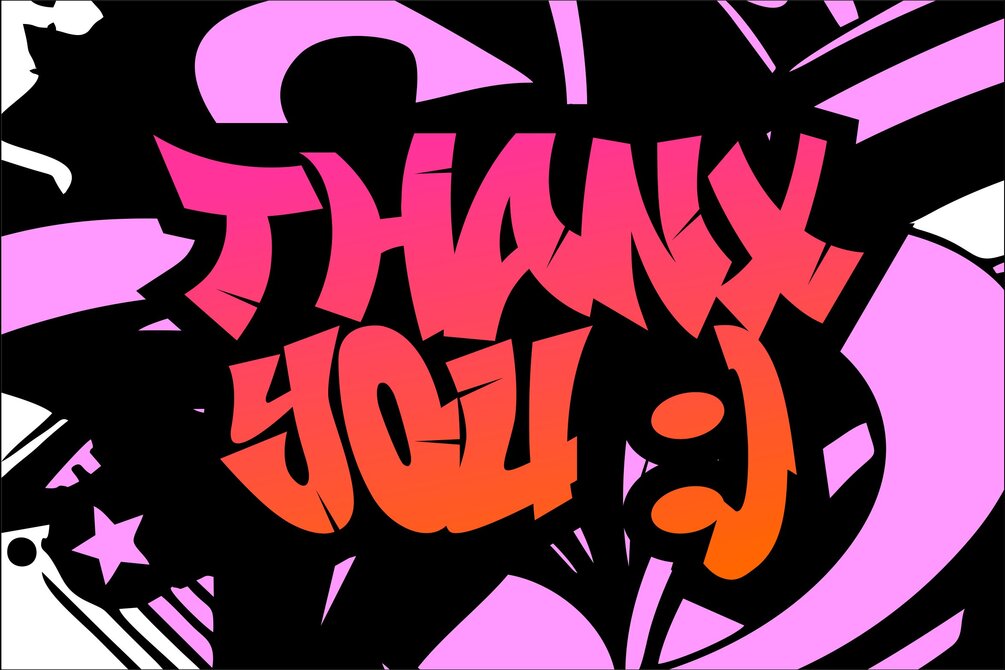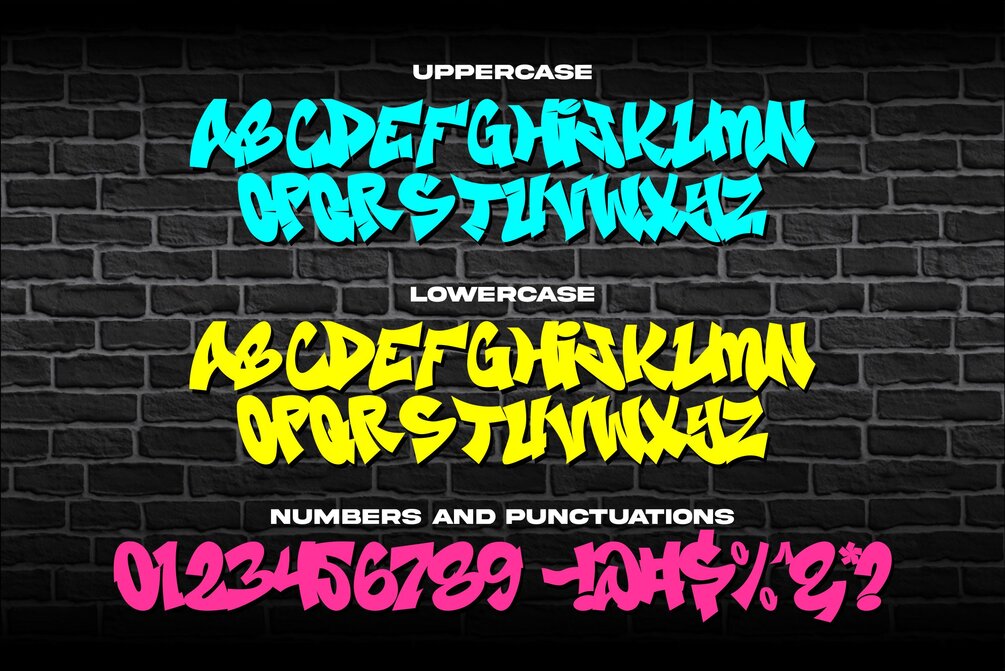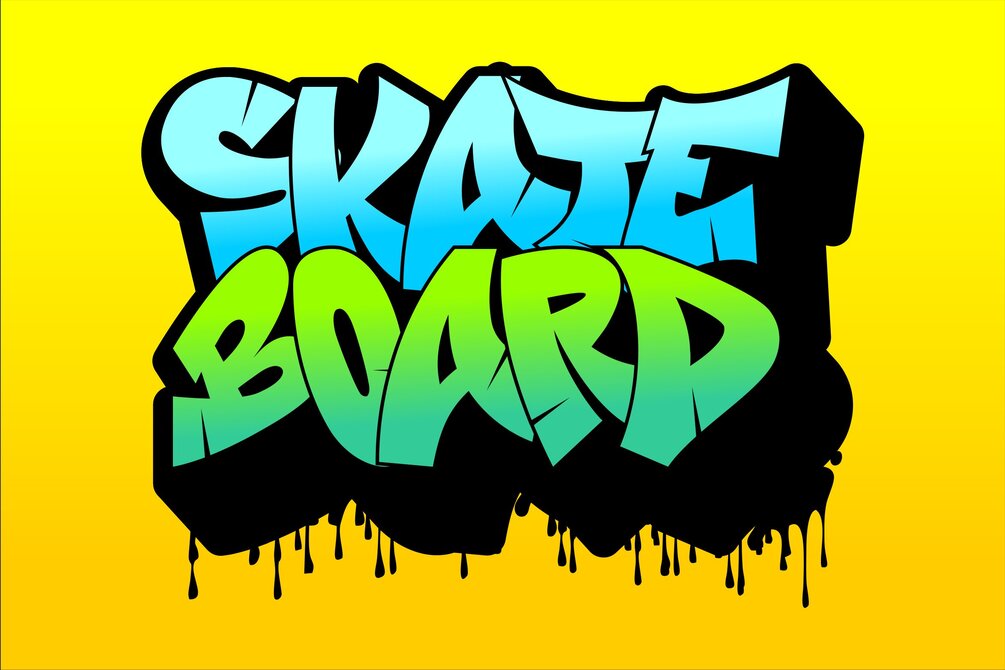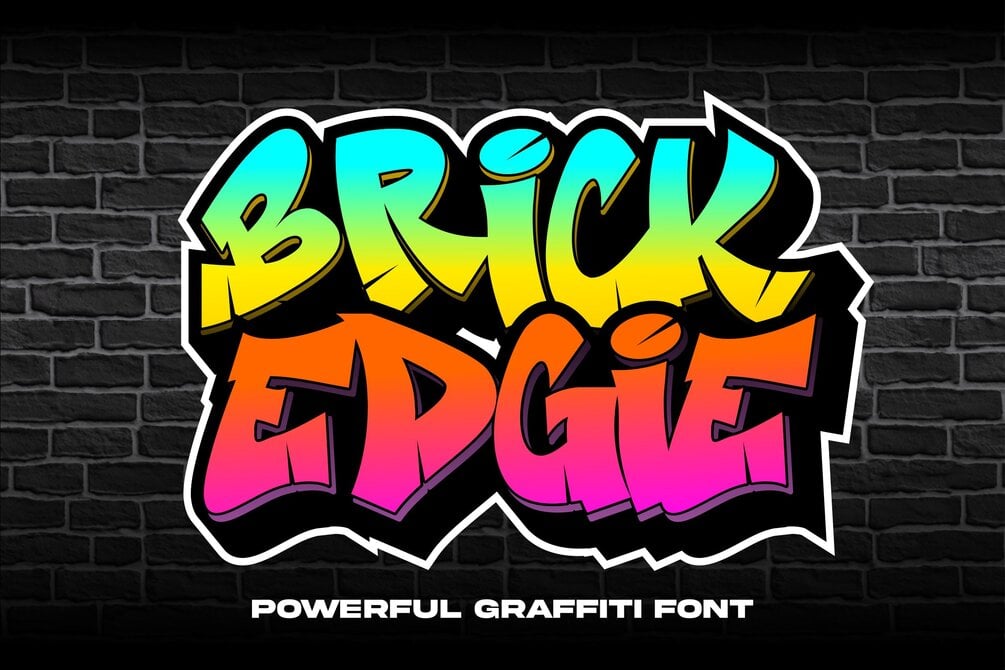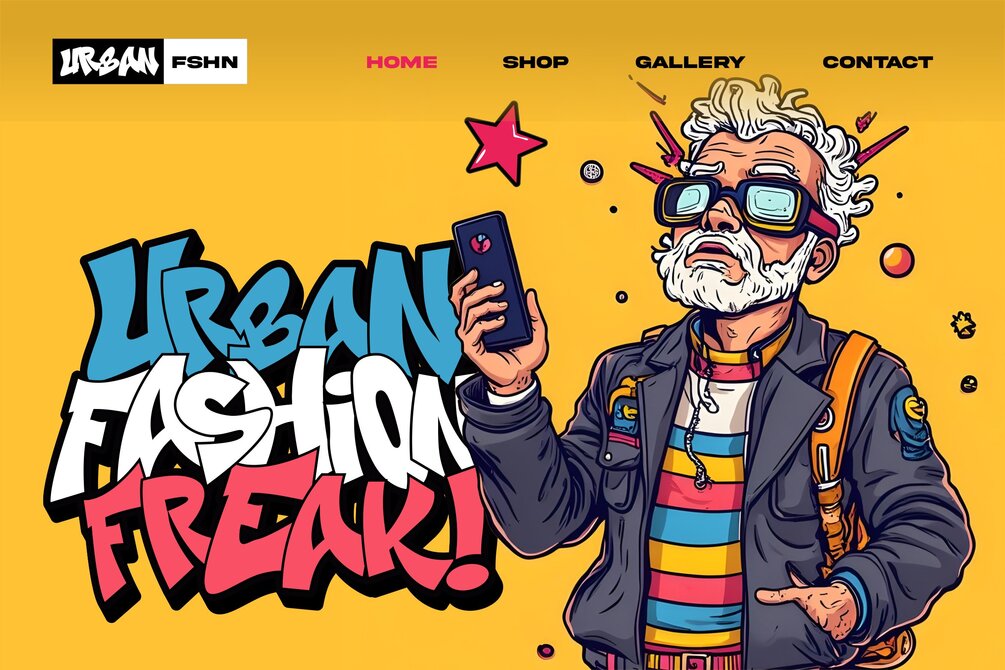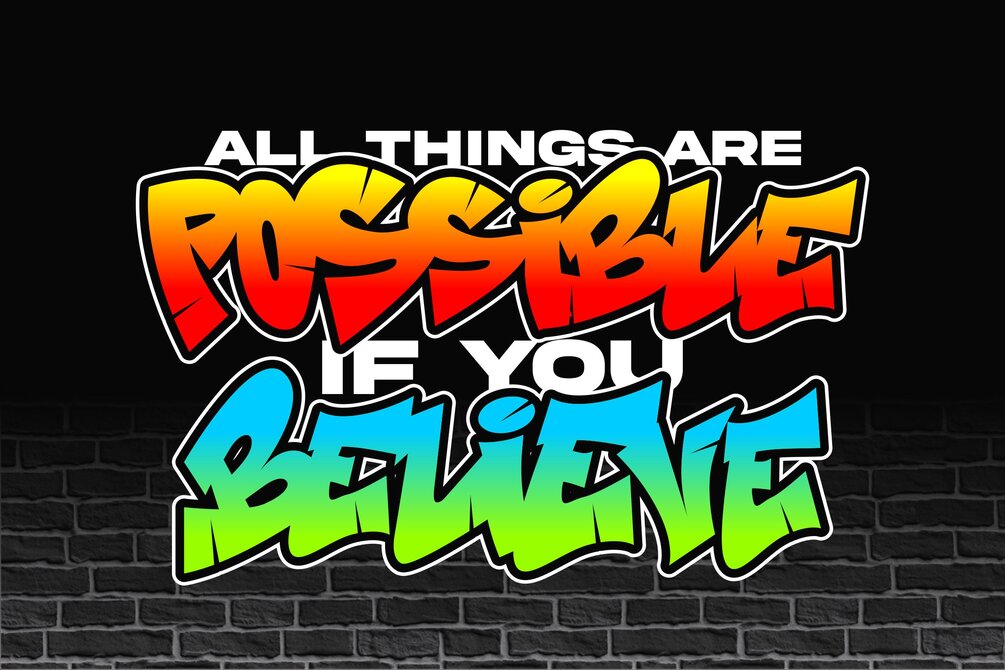
Brick Edgie is a bold and energetic graffiti font that embodies the raw spirit of urban art. With its sharp edges and striking design, this font is perfect for projects that demand an edgy, street-inspired look.
🎨 Urban Style: Brick Edgie captures the essence of graffiti culture, delivering a rebellious and powerful vibe that’s perfect for posters, branding, or any creative project with a bold attitude.
🧱 Powerful Presence: Its unique structure and dynamic strokes create a visual impact that commands attention, making your designs stand out effortlessly.
🔥 Versatile Design: Whether you’re working on digital art, murals, or branding, Brick Edgie adapts seamlessly to bring a modern, urban touch to your work.
Make a bold statement with Brick Edgie, the ultimate graffiti font for creatives who want to add a powerful urban edge to their designs.